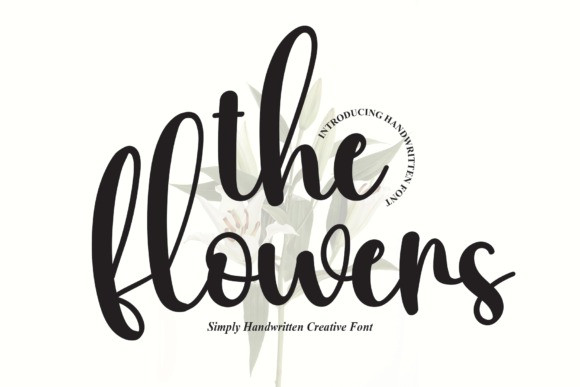
The Flowers Font
The Flowers Font,  is a flowing and delicate script font. It has neat and adaptable characters and as a result, it matches a wide range of creations. It will look extraordinary in a variety of contexts.